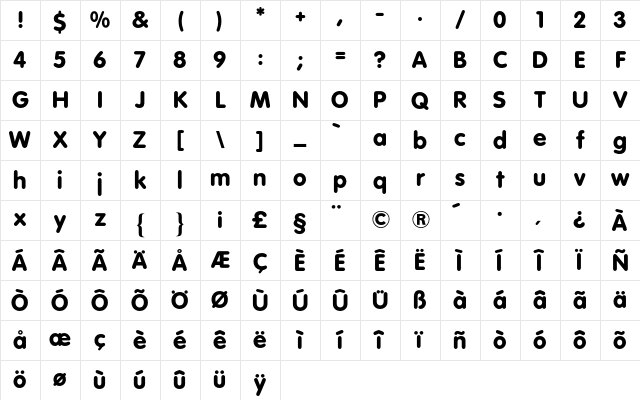
VAG Rundschrift BQ Regular
Complete VAG Rundschrift BQ Regular glyph index. Displaying only characters natively supported by VAG Rundschrift BQ Regular font.
Design Context for VAG Rundschrift BQ
VAG Rundschrift BQ is a composed and adaptable typeface that performs quietly and consistently across a wide range of design contexts.
Pro Tip: Use VAG Rundschrift BQ in both headline and body roles to test its range before committing to a single application.